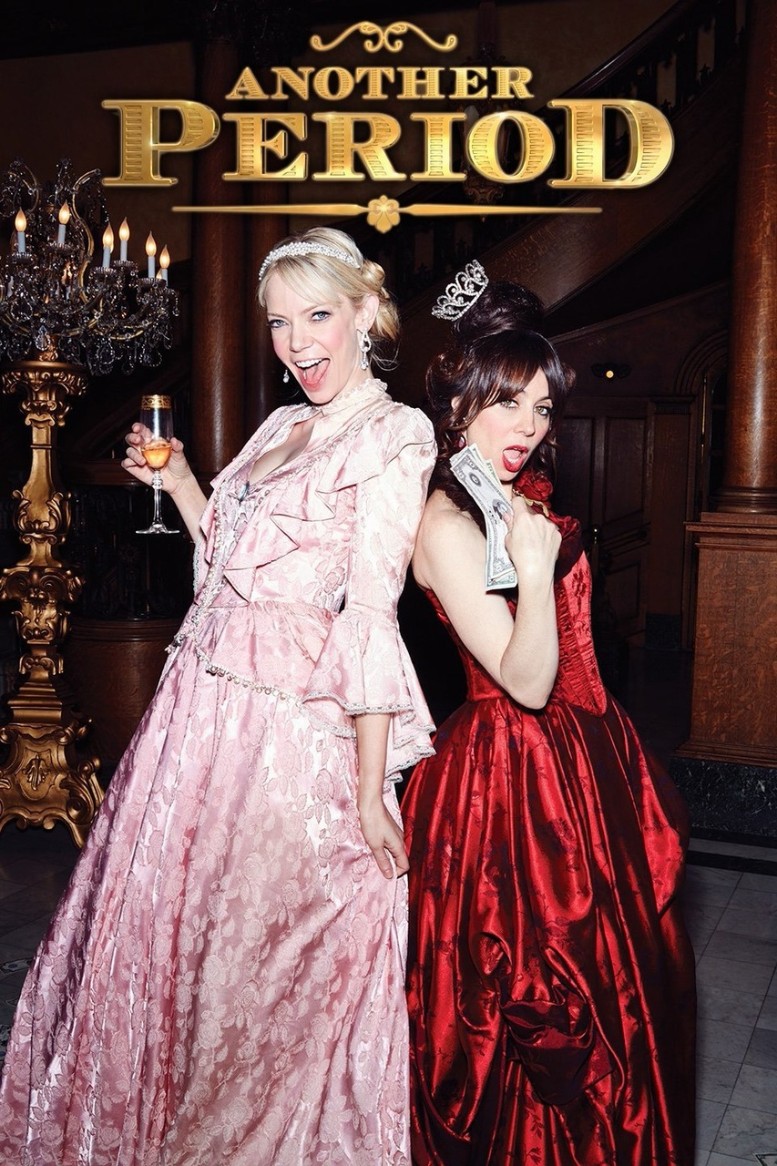
Another Period Font
ComedyAnother Period is a historical satire sitcom set in the early 1900s, following the lives of the wealthy and eccentric Bellacourt family.
The title of the TV series ''Another Period'' probably uses Chevalier Stripes, an engraved all-capital font with delicate shading effects which was published by URW Type Foundry. A free alternative, Ecuyer DAX created by Daxad, can be downloaded for free from the Fonts USed Section.